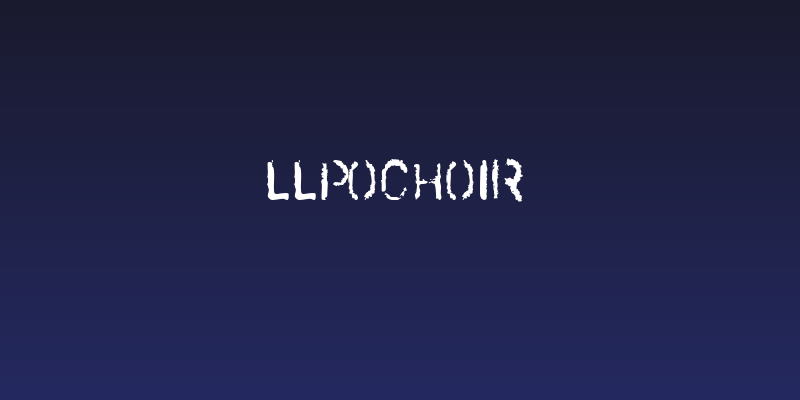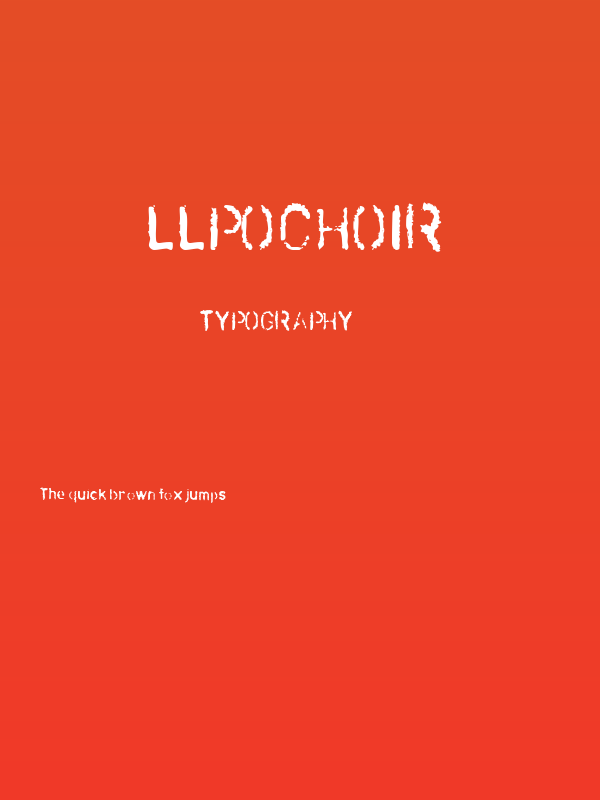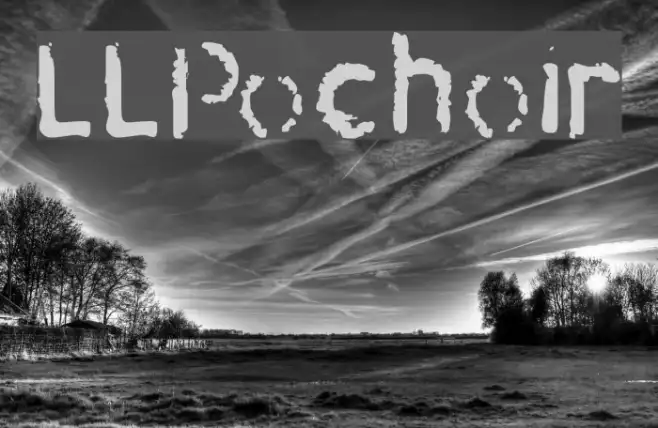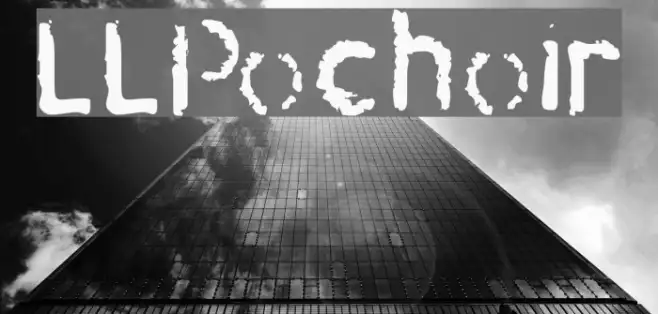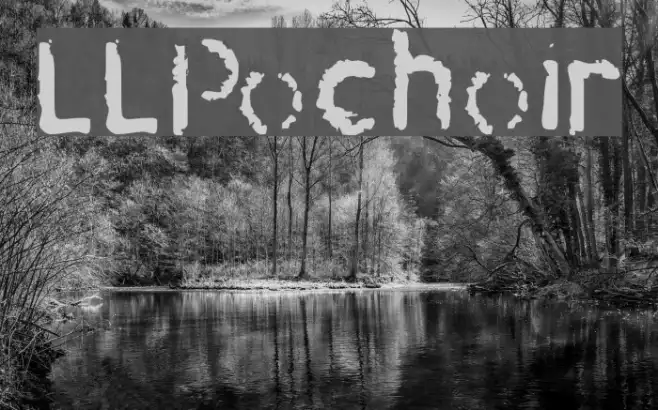
LLPochoir Font
LLPochoir Description
This font features a distinctive stencil-like appearance with rough, jagged edges that give it a rugged and industrial feel. The uppercase and lowercase letters maintain a consistent style, with each character appearing as if it has been cut out or eroded over time. The numbers and special characters follow the same aesthetic, ensuring a cohesive look across all elements. This font's unique texture and bold presence make it stand out, ideal for projects that require a strong visual impact.
| Overall Style | Industrial, Rugged |
| Proposed Projects | Ideal for poster designs, album covers, urban-themed branding, and any project requiring a bold, industrial look. |